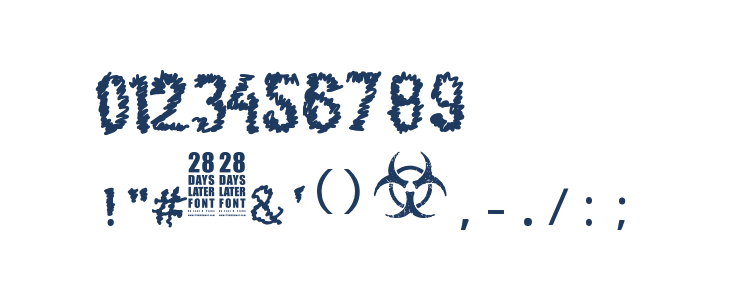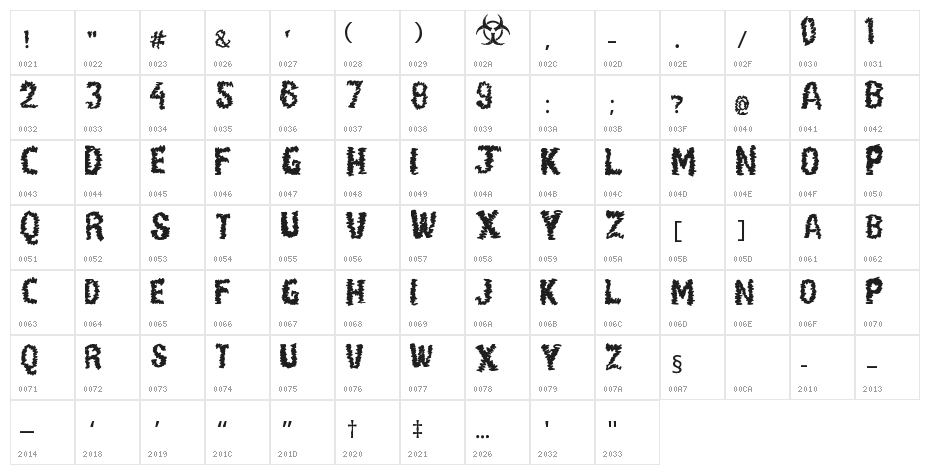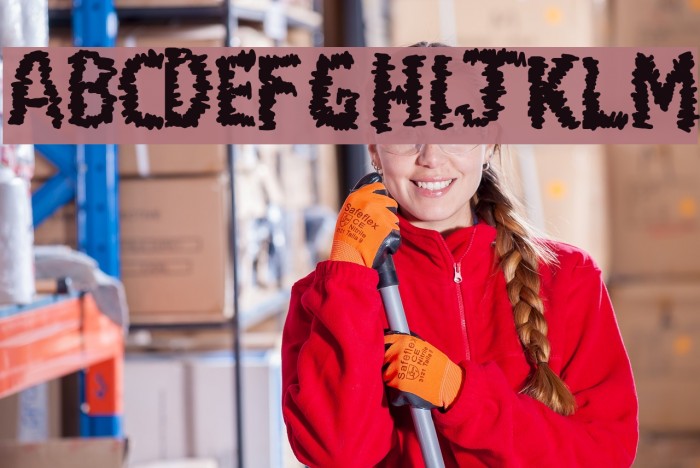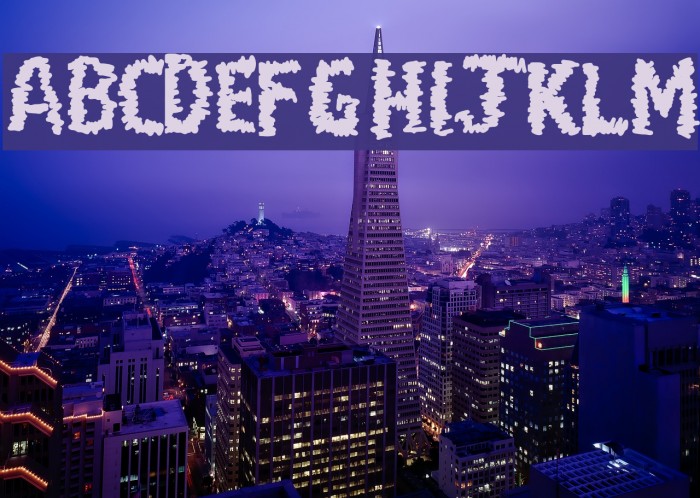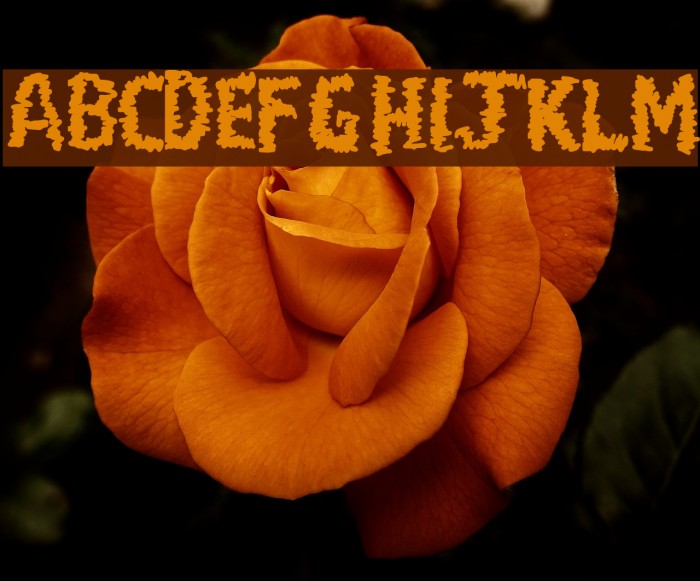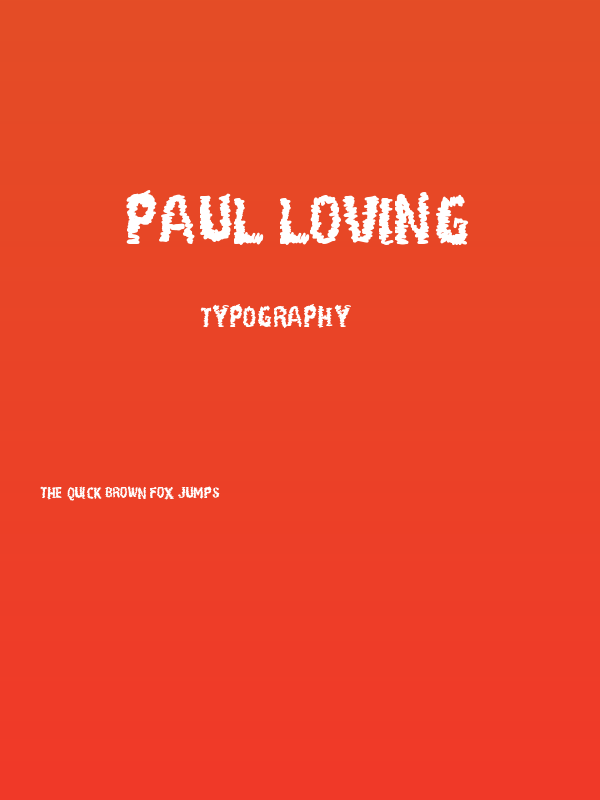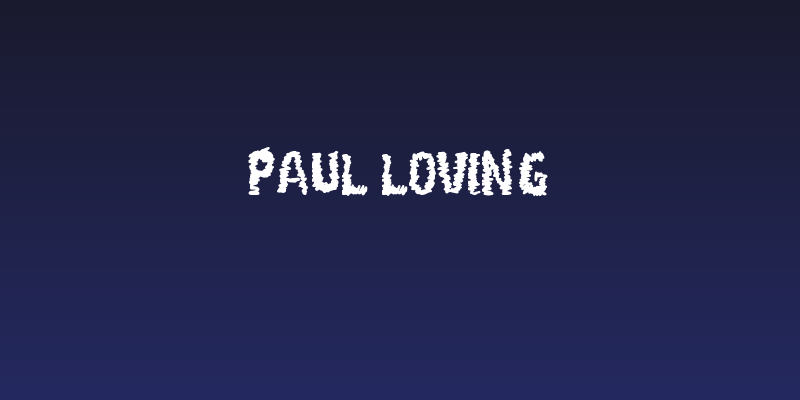
Paul Loving Font
Paul Loving Description
This font features a highly distinctive and chaotic design, characterized by jagged, irregular edges that give it a rough, distressed appearance. The letters are bold and impactful, with a sense of movement and energy that suggests a dynamic, almost aggressive style. The uppercase and lowercase letters maintain this rugged texture, creating a cohesive look across the alphabet. Numbers and special characters follow the same design principles, ensuring consistency throughout. This font is ideal for projects that require a bold statement or a sense of urgency and intensity.